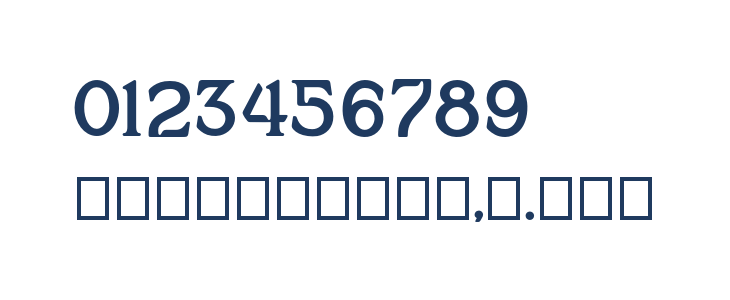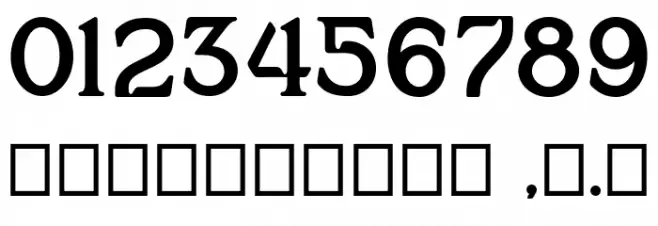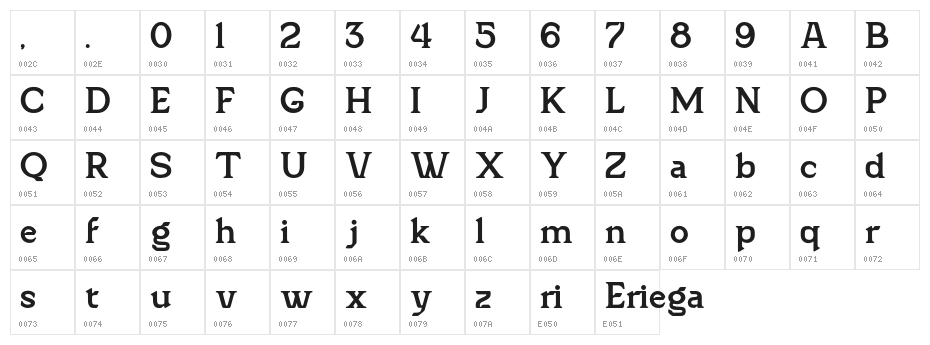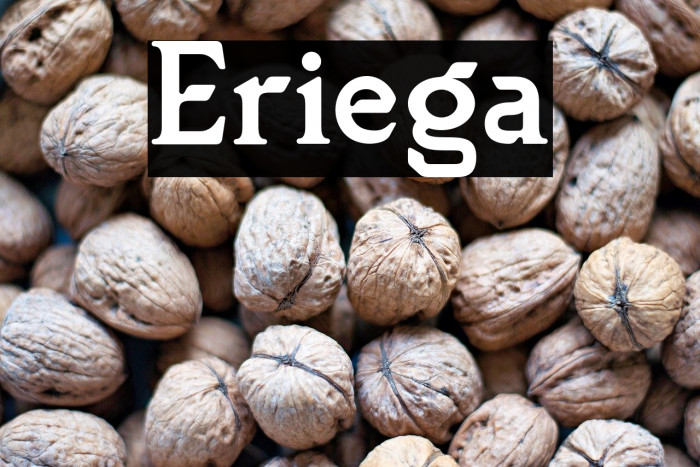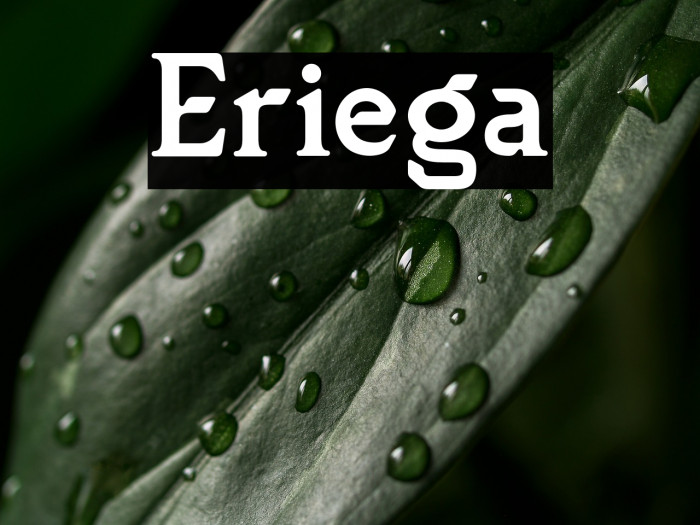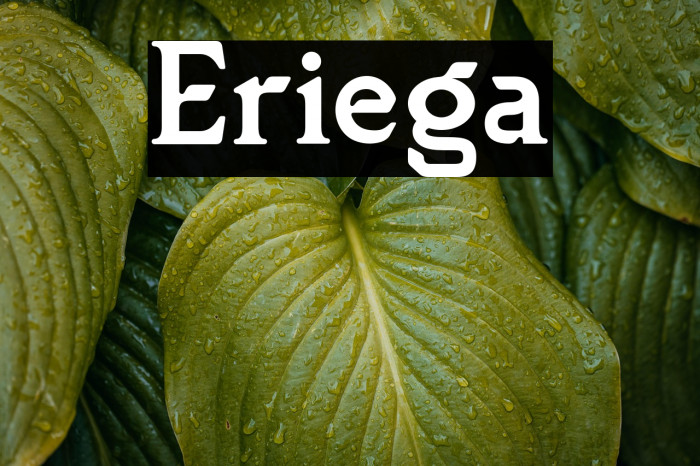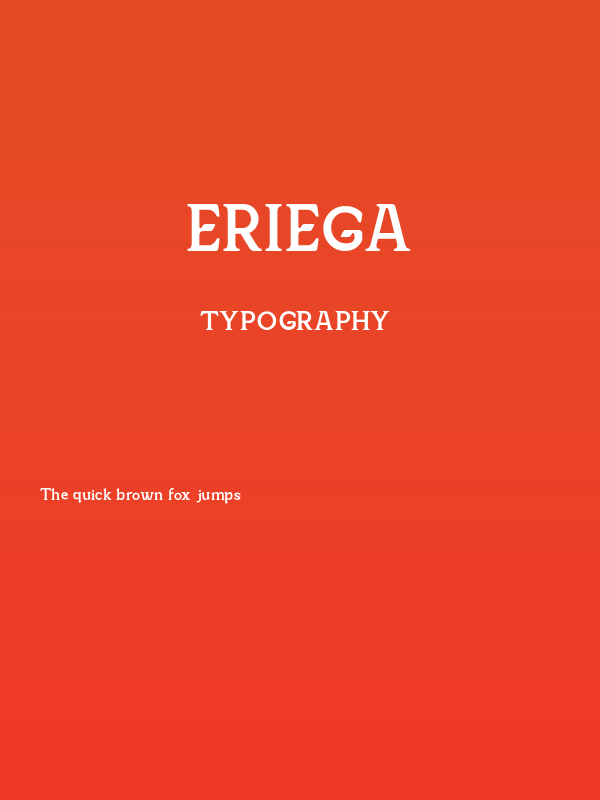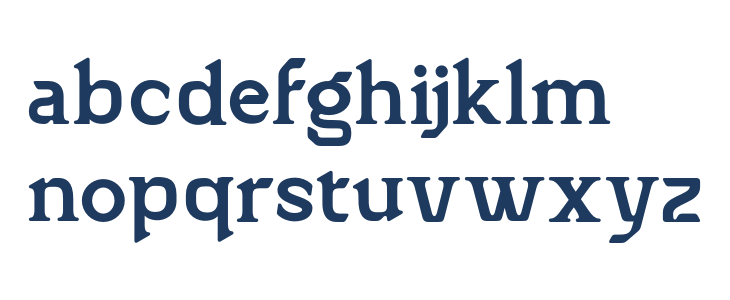
Eriega Font
Eriega Description
This font exhibits a classic serif style with a strong, authoritative presence. The uppercase letters are bold and well-defined, featuring sharp serifs that add a touch of elegance and tradition. The lowercase letters maintain a consistent style, with a slightly rounded appearance that softens the overall look. The numerals are clear and easy to read, making them suitable for both formal and informal contexts. The font's design is versatile, offering a balance between modernity and classicism, making it suitable for a variety of applications.